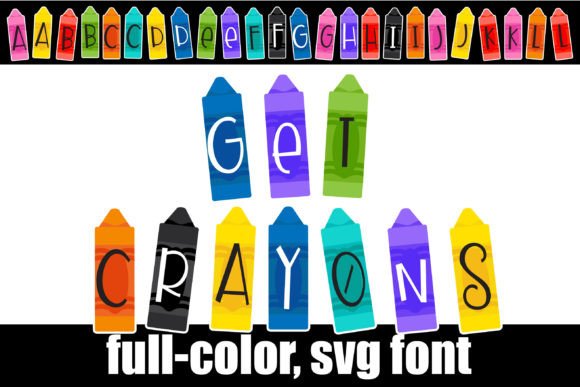
Introducing Get Crayons Font, the font for handwritten letter enthusiasts! Created by Illustration Ink, this colorful font is sure to catch your eye and add a touch of whimsy to your designs. With its playful sans serif lettering on little crayons, Get Crayons Font is the perfect choice for anyone looking to make a bold statement.
But what sets Get Crayons Font apart from other fonts? Well, let us tell you! This font comes with an alternate version of each letter in a different color, allowing you to unleash your creativity and add a splash of vibrancy to your projects. Simply access these alternate letters through your system character map.
One of the greatest advantages of full-color SVG fonts like Get Crayons is their versatility. Whether you're designing a logo, working on branding materials, or designing for the web or print, this font has got you covered. Its vector-based nature ensures that you can scale it to any size without worrying about losing quality or resolution.
Not only is Get Crayons Font versatile, but it also guarantees high quality. You can trust that your designs will maintain their crispness and clarity, no matter how big or small they are. And the best part? Using this font is a breeze. It can be easily installed in any software that supports SVG fonts, making it accessible to designers of all skill levels.
So, if you're searching for a font that will elevate your designs and captivate your audience, look no further than Get Crayons Font. With its vibrant colors, easy installation, and limitless possibilities, this font is a must-have for any creative project. Download Get Crayons Font today and let your imagination run wild!